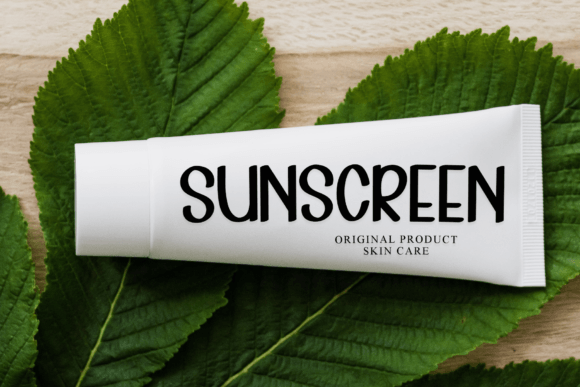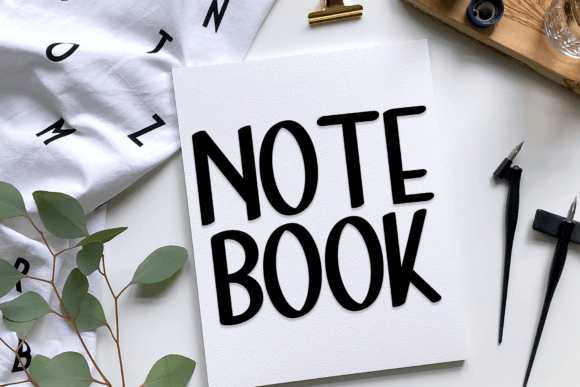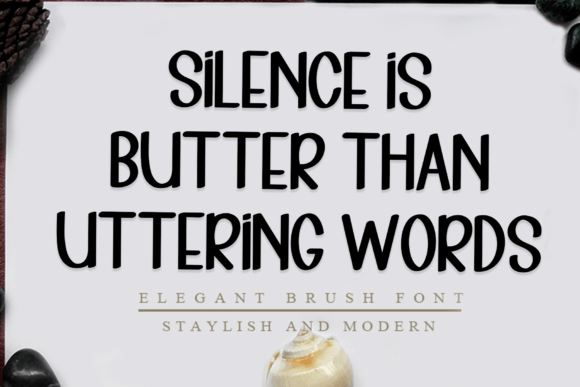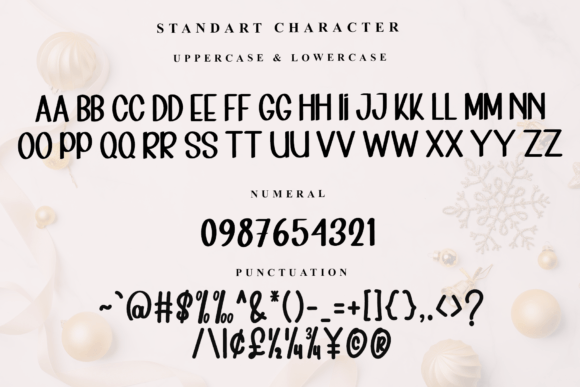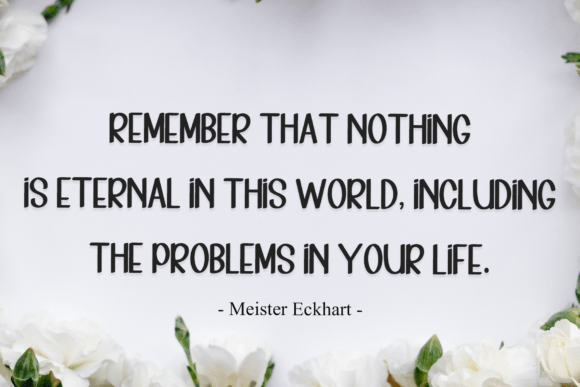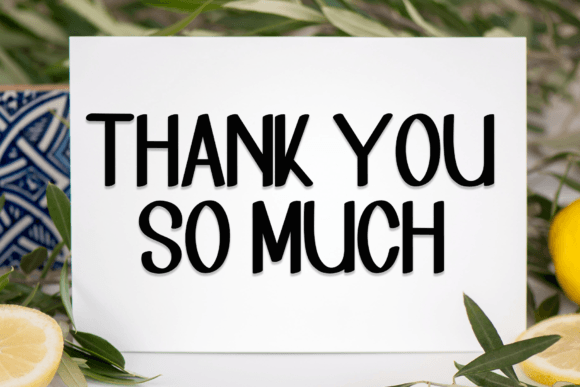
Introducing Christmas Font: A Delicate, Elegant, and Timeless Choice for Your Designs
Are you looking for a font that exudes elegance, sophistication, and a touch of festive charm? Look no further than the Christmas font! This beautiful, delicate, and timeless font is perfect for designers and crafters who want to add a touch of magic to their creations. In this article, we’ll explore the features and benefits of the Christmas font, and how it can elevate your designs to the next level.
A Font that Matches a Wide Pool of Designs
One of the standout features of the Christmas font is its versatility. With its well-balanced characters and elegant design, it can match a wide range of design styles, from traditional to modern, and from simple to complex. Whether you’re creating a festive holiday card, a elegant wedding invitation, or a sophisticated branding campaign, the Christmas font is sure to impress.
The font’s classic design makes it an excellent choice for a variety of projects, including:
- Wedding stationery and decor
Beautiful and Well-Balanced Characters
The Christmas font features beautiful and well-balanced characters that are designed to work together in harmony. Each letter, number, and symbol is carefully crafted to ensure that they look elegant and refined, both on their own and in combination with other characters.
The font’s attention to detail is evident in its:
- Precise letter spacing and kerning
- Beautifully designed ligatures and glyphs
- Consistent stroke widths and weights
Adding a Touch of Magic to Your Designs
The Christmas font is more than just a font – it’s a design element that can add a touch of magic to your creations. With its elegant design and versatile nature, it can help you to:
- Create stunning holiday cards and invitations that will leave a lasting impression
- Elevate your branding and packaging design with a touch of sophistication
- Add a touch of elegance to your website or blog headers
- Make your social media graphics and posts stand out from the crowd
In conclusion, the Christmas font is a delicate, elegant, and timeless font that is perfect for designers and crafters who want to add a touch of festive charm to their creations. With its well-balanced characters, PUA coding, and versatile nature, it’s an excellent choice for a wide range of design projects. Whether you’re creating holiday cards, wedding stationery, or branding campaigns, the Christmas font is sure to impress. So why wait? Add the Christmas font to your design toolkit today and notice how it makes your creations come alive!